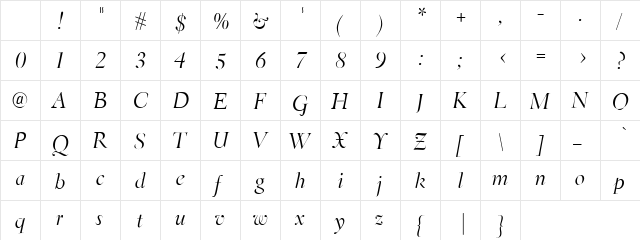
Complete EldoradoLight Regular glyph index. Displaying only characters natively supported by EldoradoLight Regular font.
EldoradoLight is a composed and adaptable typeface that performs quietly and consistently across a wide range of design contexts. Its slender proportions lend an understated elegance to any composition.